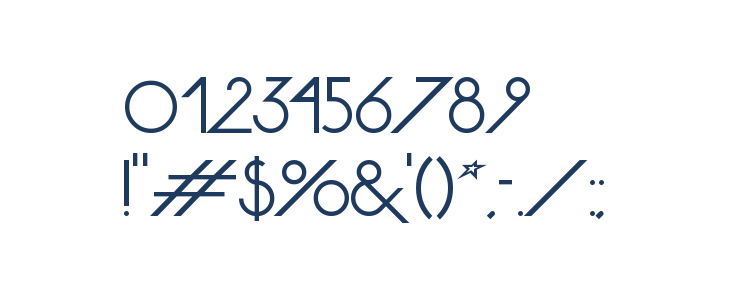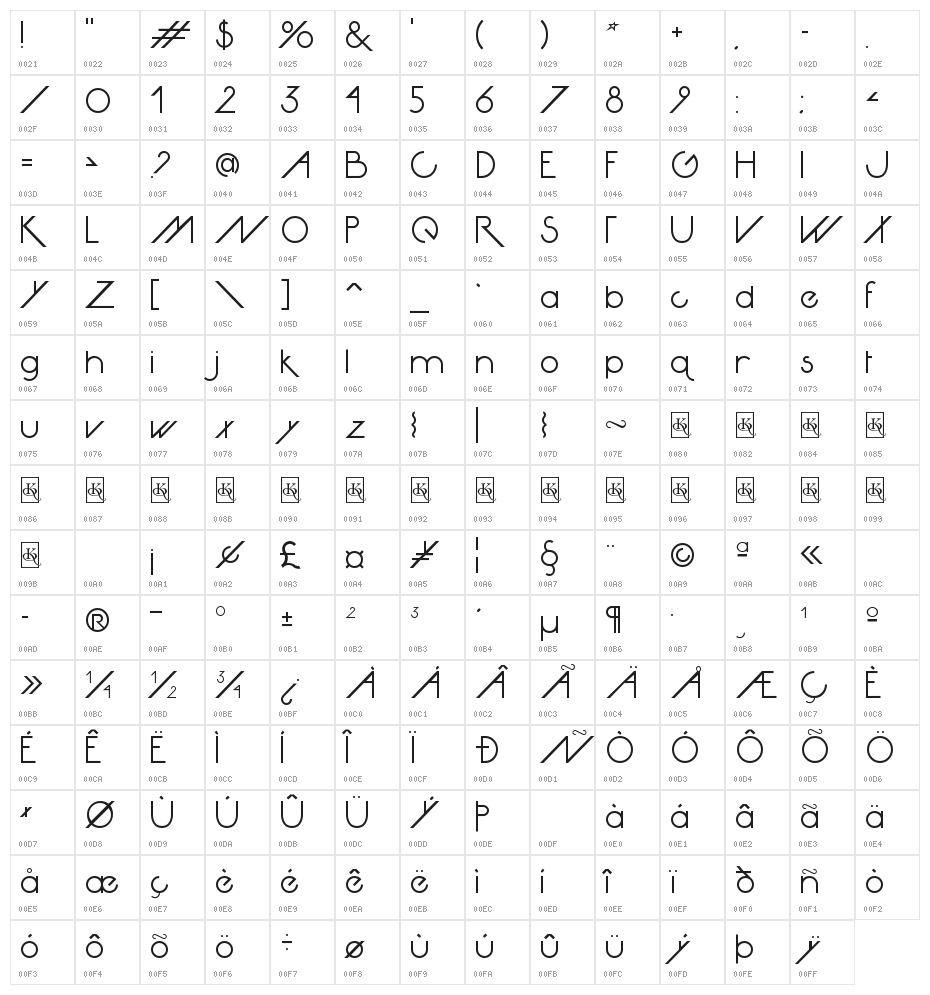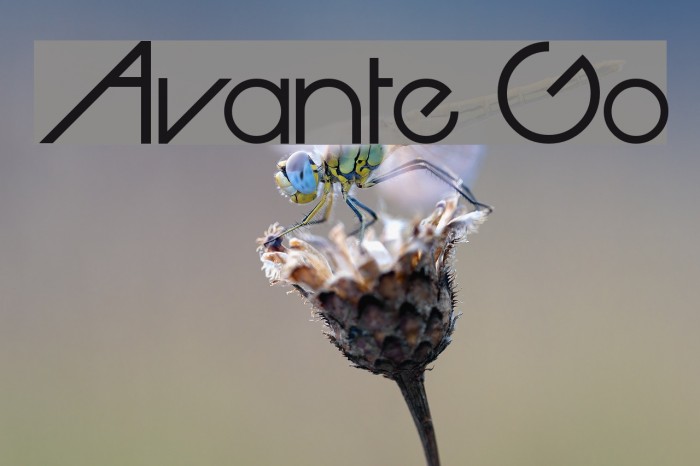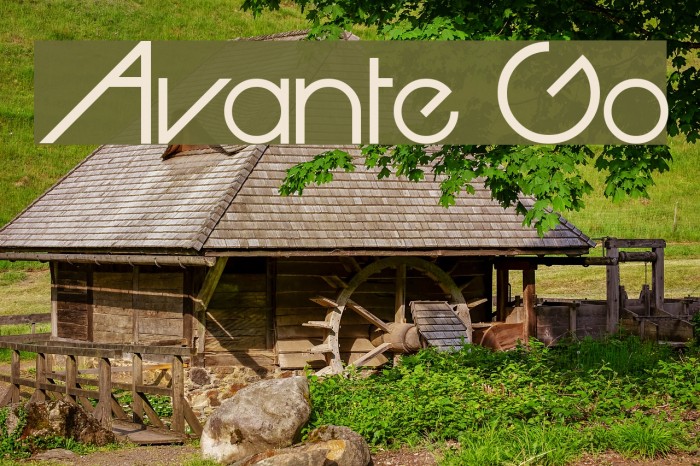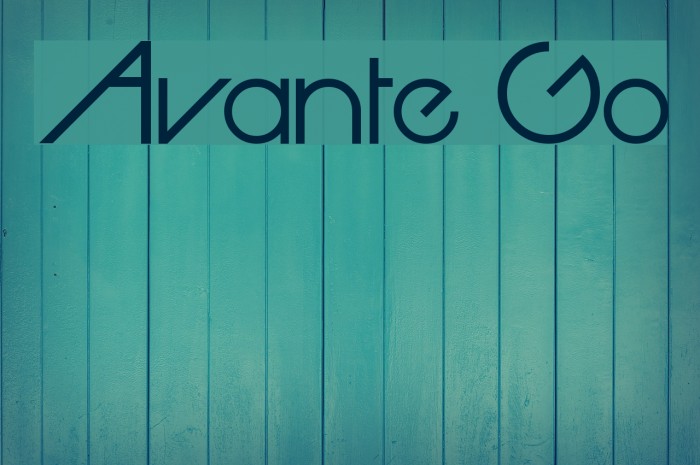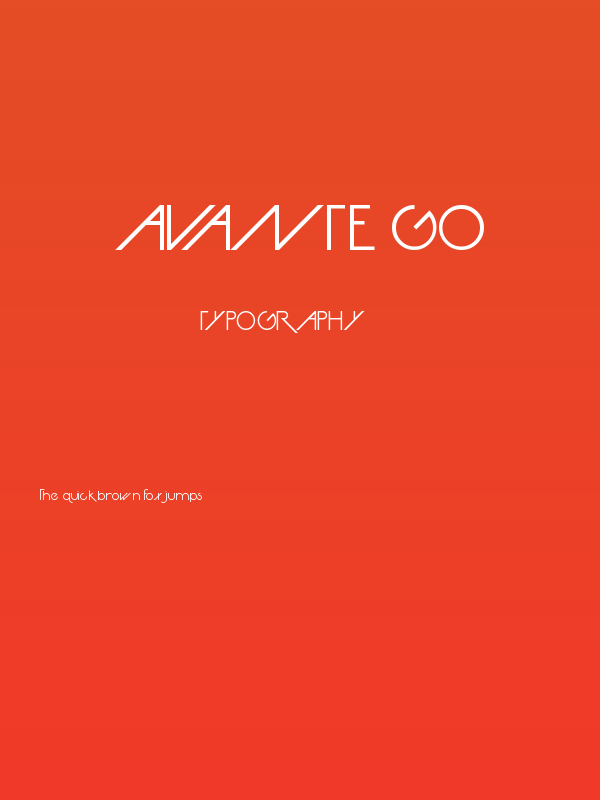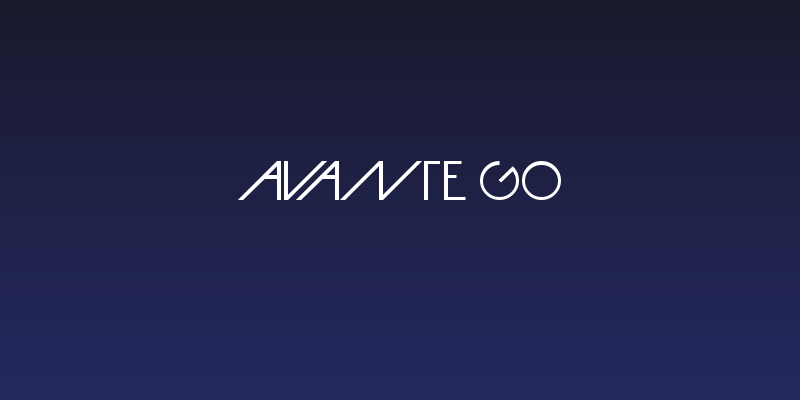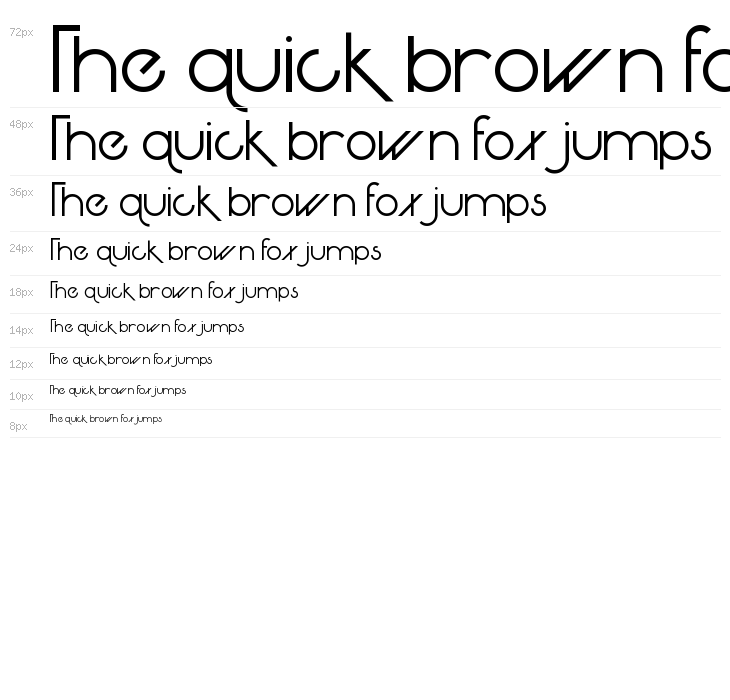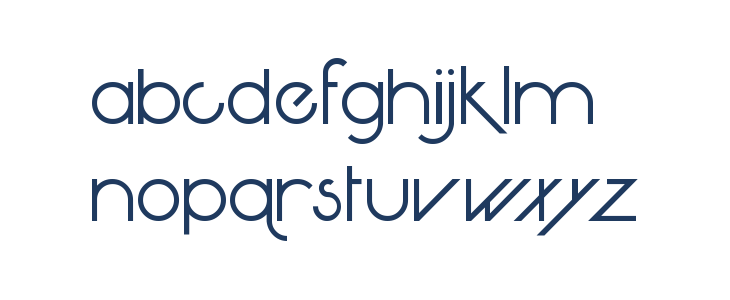
Avante Go Font
Avante Go Description
This font features a sleek, modern design with a geometric flair. The uppercase letters are characterized by sharp angles and clean lines, giving them a futuristic appearance. The lowercase letters maintain a consistent roundness, providing a harmonious balance between the two cases. The numerals are bold and distinct, ensuring clarity and readability. Special characters are designed with the same attention to detail, seamlessly integrating with the overall aesthetic. The font's uniform stroke width and minimal contrast contribute to its contemporary and stylish look, making it suitable for a variety of design applications.